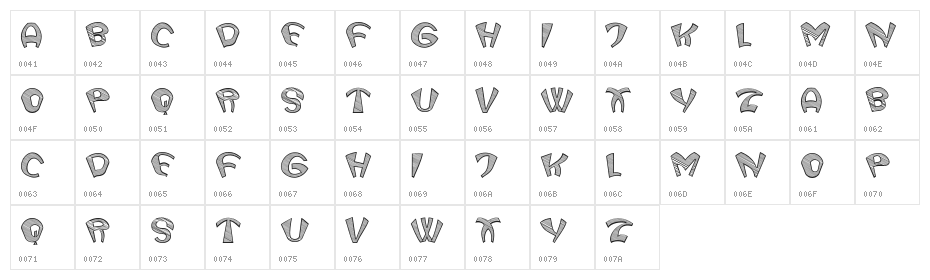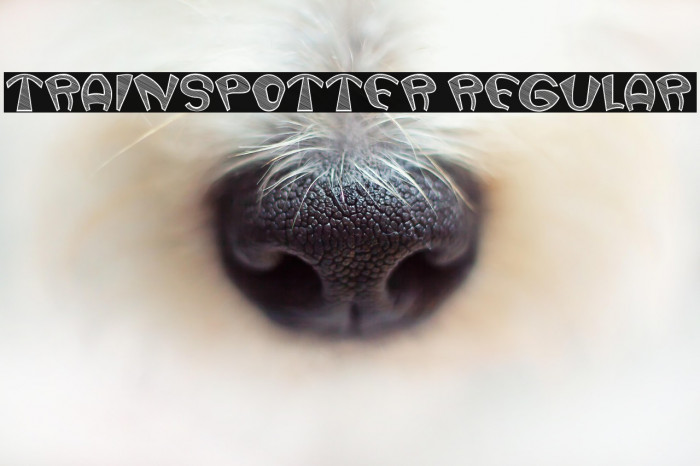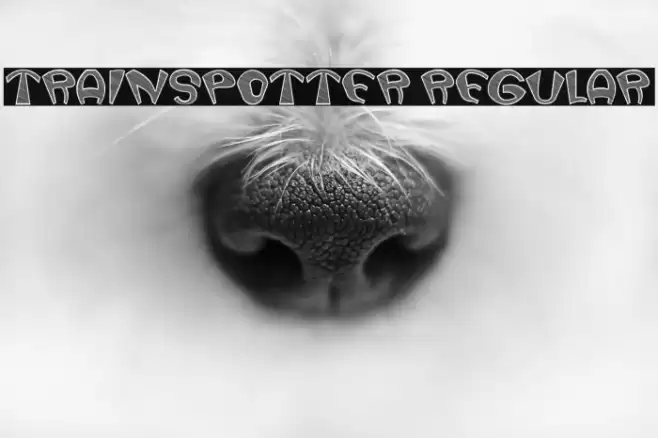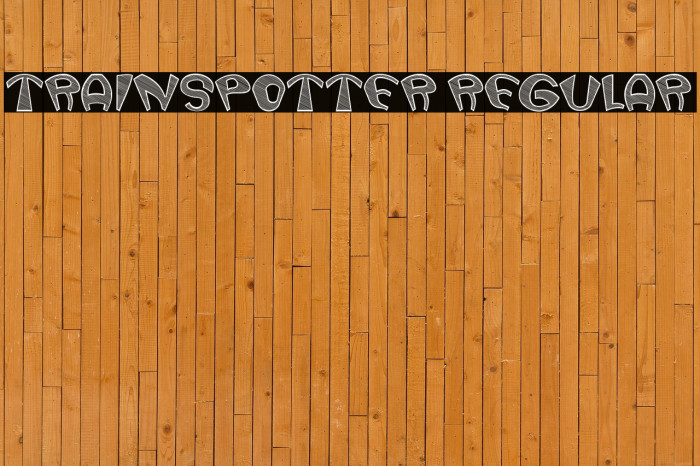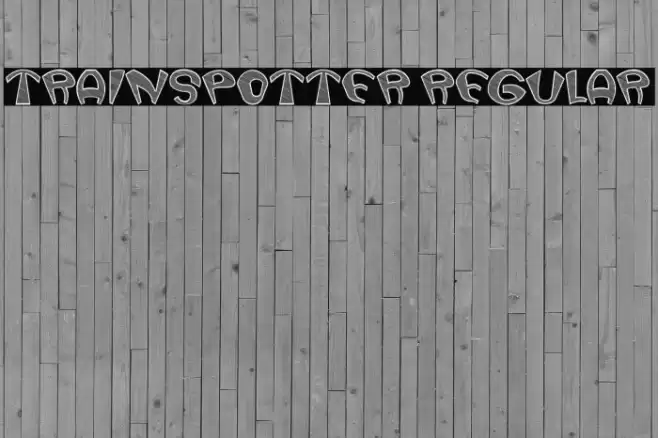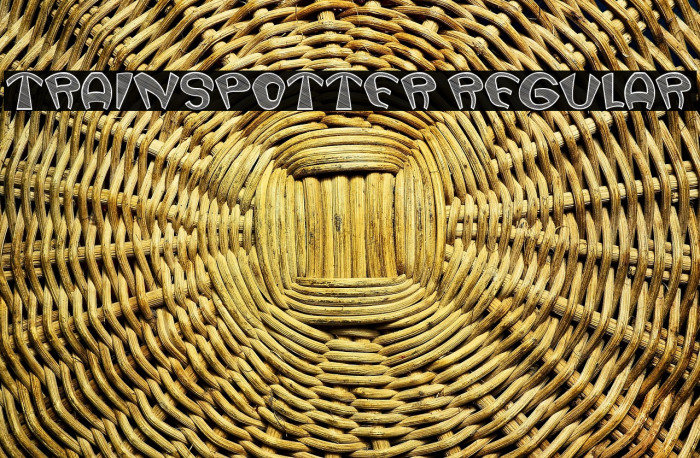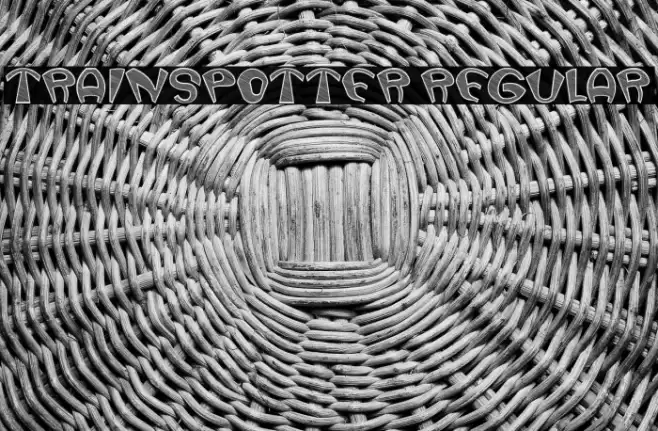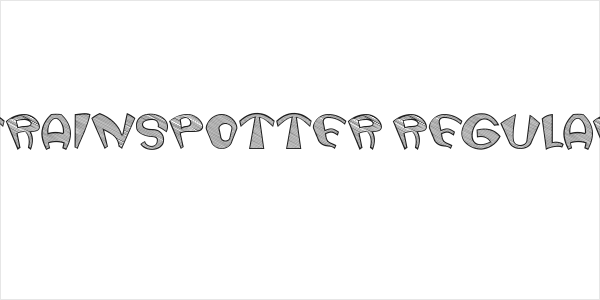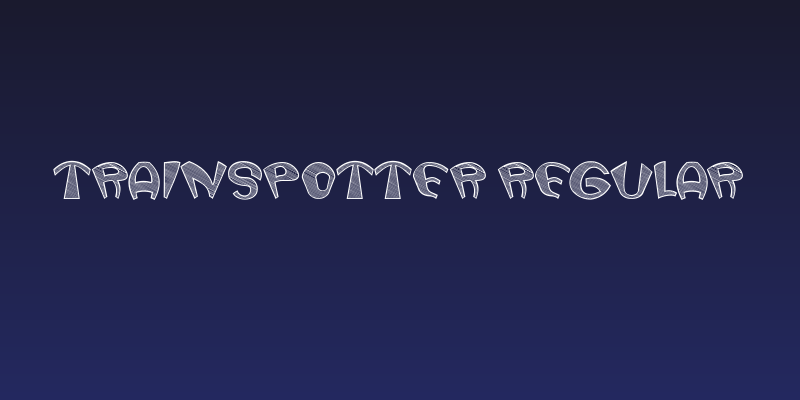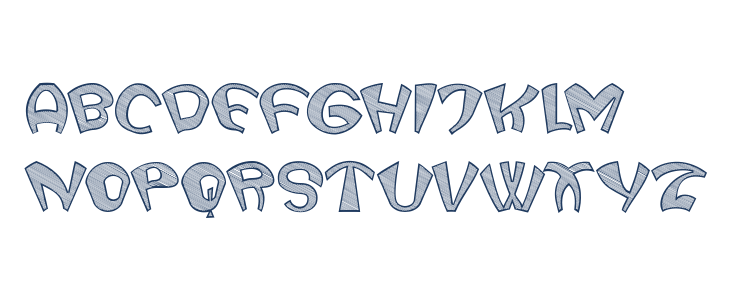
Trainspotter Regular Font
Trainspotter Regular Description
This font features a playful and dynamic design with a hand-drawn aesthetic. Each character is uniquely styled with a combination of bold outlines and intricate internal patterns, giving it a textured appearance. The letters are slightly irregular, adding to the whimsical and artistic feel. The font maintains a consistent weight throughout, with moderate contrast between thick and thin strokes. Its decorative nature makes it stand out, ideal for creative projects that require a touch of personality and flair.
| Proposed Projects | Ideal for children's book covers, playful branding, posters, and creative invitations. |